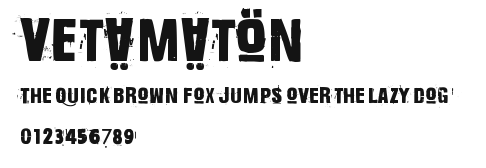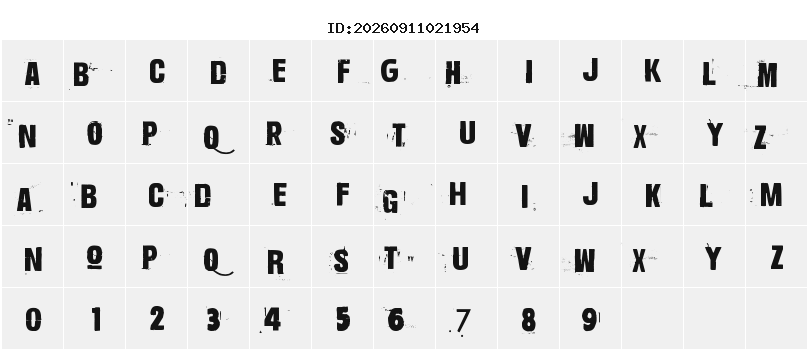
Vetämätön Preview
• Font Name: Vetämätön
• Font ID: Vetämätön:Version 1.00
• Full Font Name: Vetämätön
• Version: Version 1.00 February 9, 2014, initial release
• PostScript Name: Vetamaton
About Vetämätön.ttf
Vetämätön.ttf is a modern, elegant sans-serif font designed for ultimate readability and visual harmony. Perfect for branding, headlines, web design, and print materials.